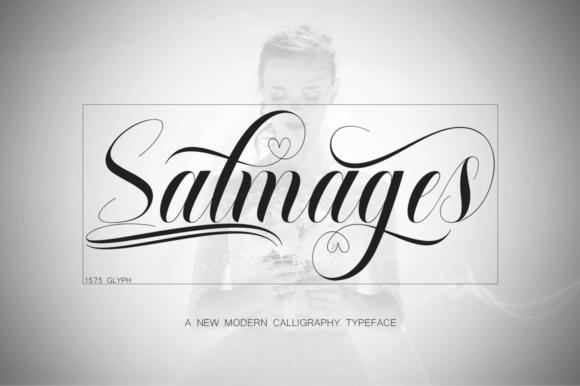
Behold, Salmages Font, a captivating script font family that will transform your creative projects into enchanting masterpieces. Inspired by the allure of love and femininity, Salmages is meticulously crafted to evoke emotions and create a lasting impression.
Step into a world of endless possibilities with Salmages, where your words dance with grace and elegance. Its beautiful swashes, adorned with delicate heart embellishments, add a touch of enchantment to every letter, making your messages truly special.
This versatile font is a perfect companion for a multitude of romantic and girly projects. Design heartfelt invitations, create whimsical logos, or craft stunning social media posts that will leave your audience spellbound. Salmages is the key to unlocking your creativity and making your ideas shine.
With Salmages, you can:
- Design wedding invitations that capture the essence of love and romance.
- Create logos and branding that exude charm and sophistication.
- Craft social media posts that stand out from the crowd.
- Personalize greeting cards, posters, and other creative projects with a touch of elegance.